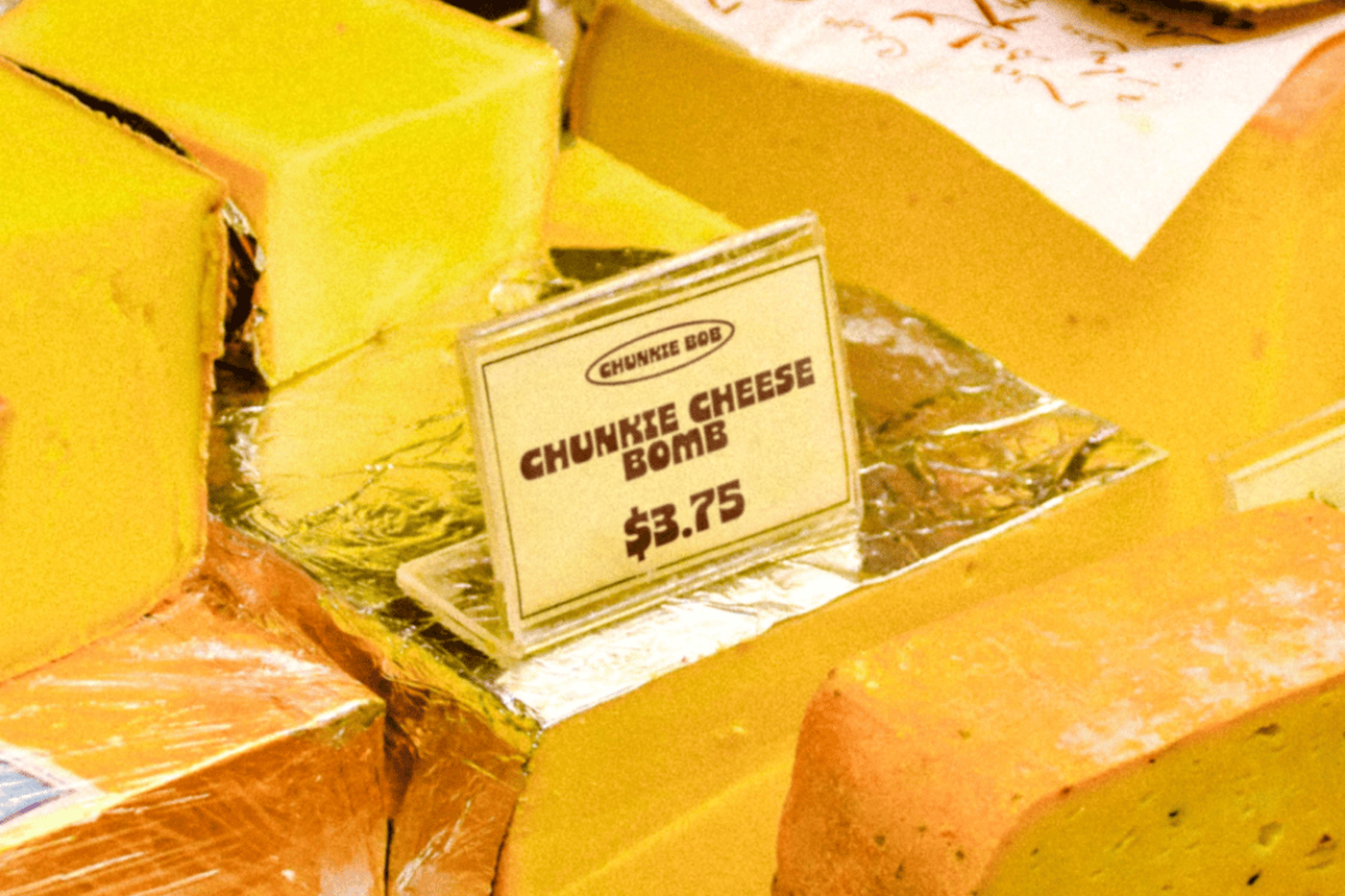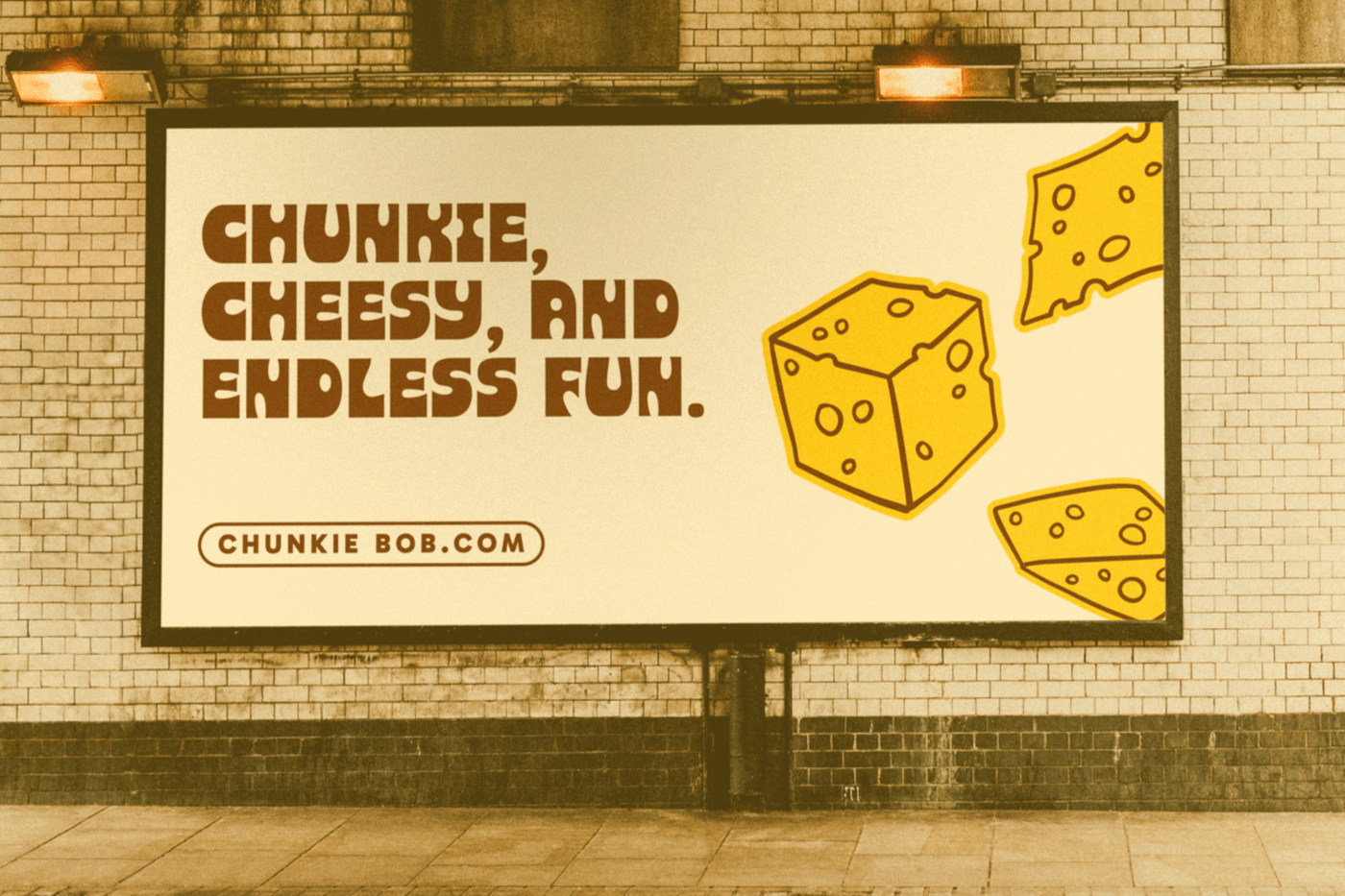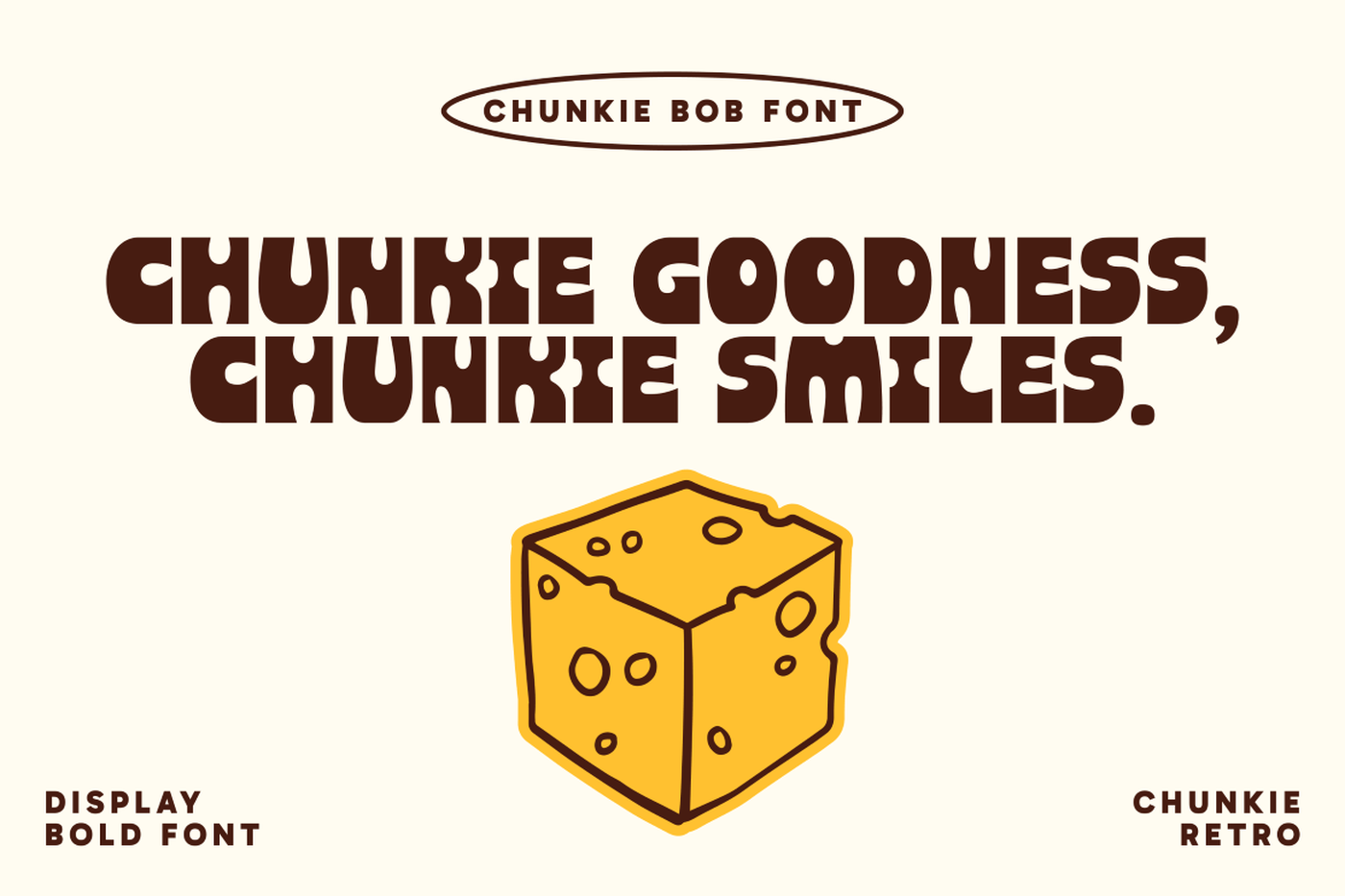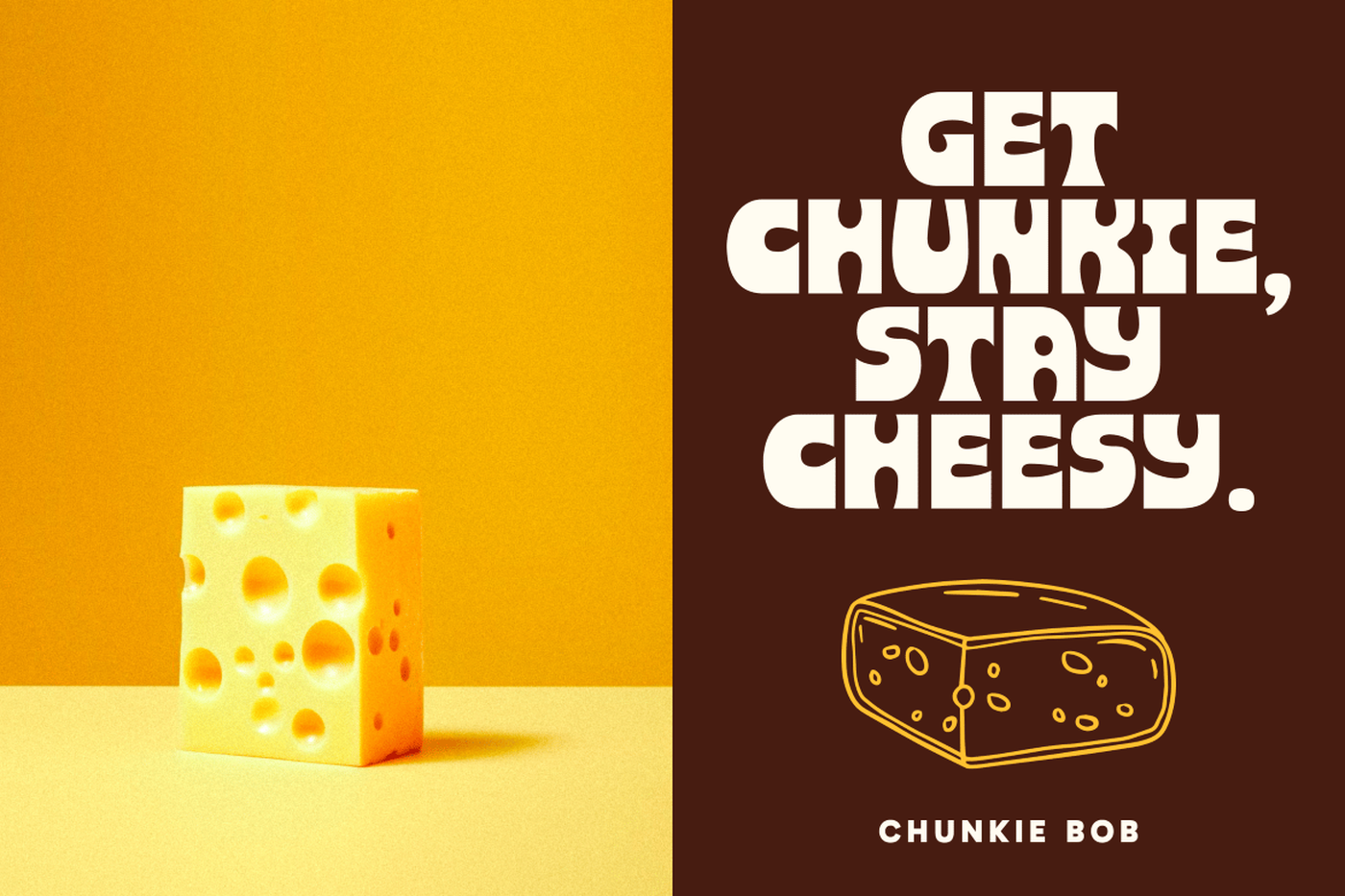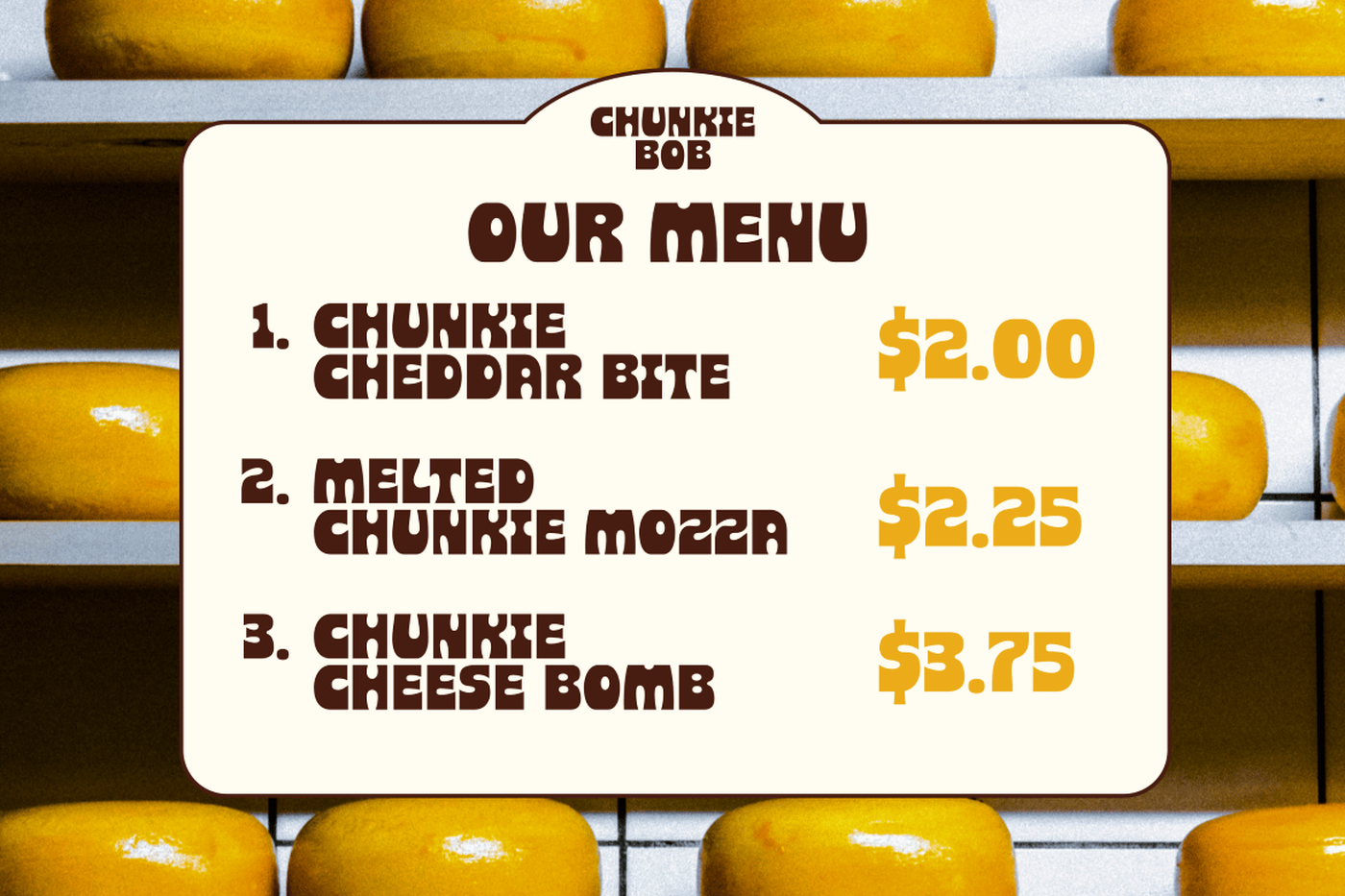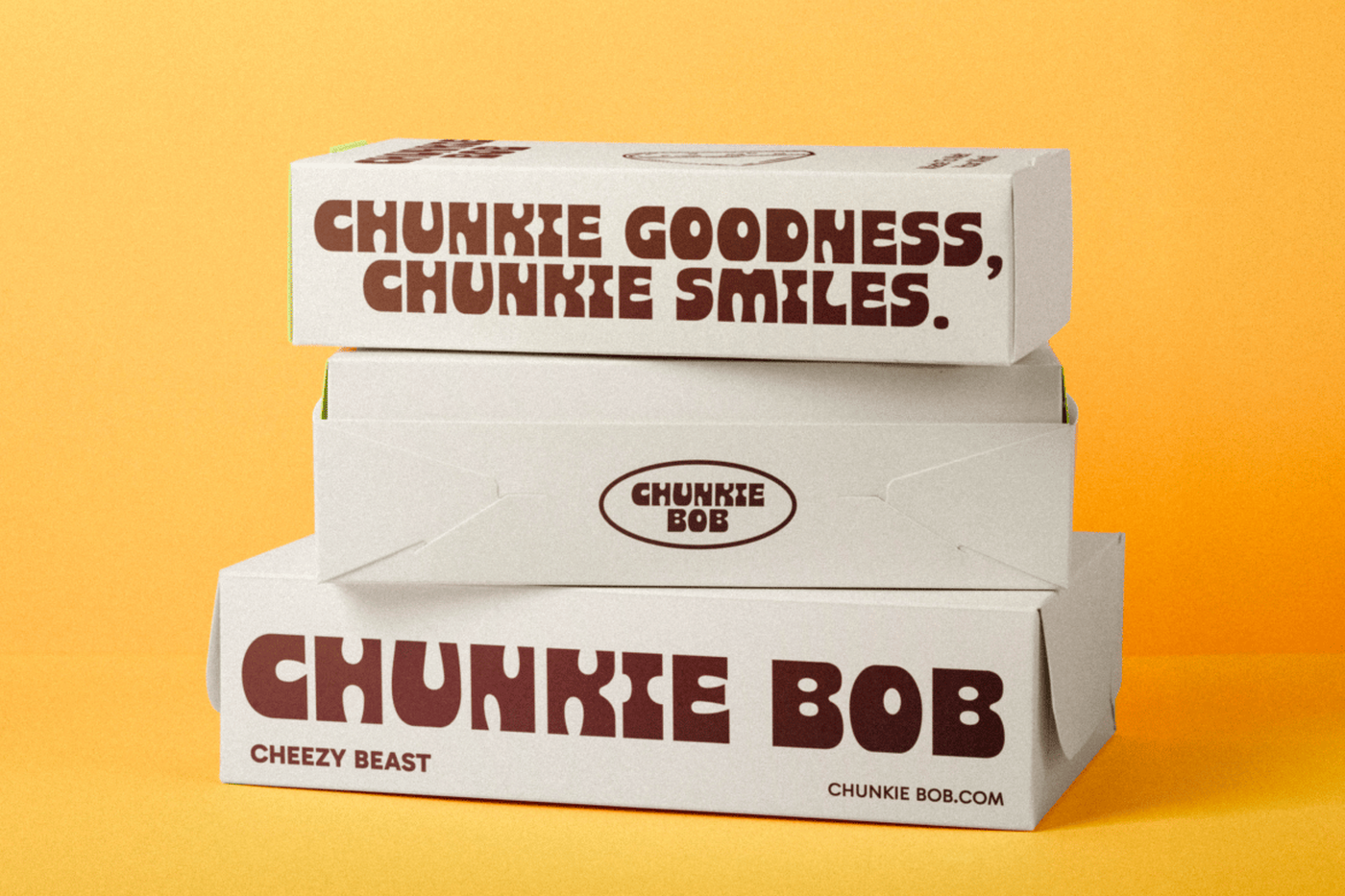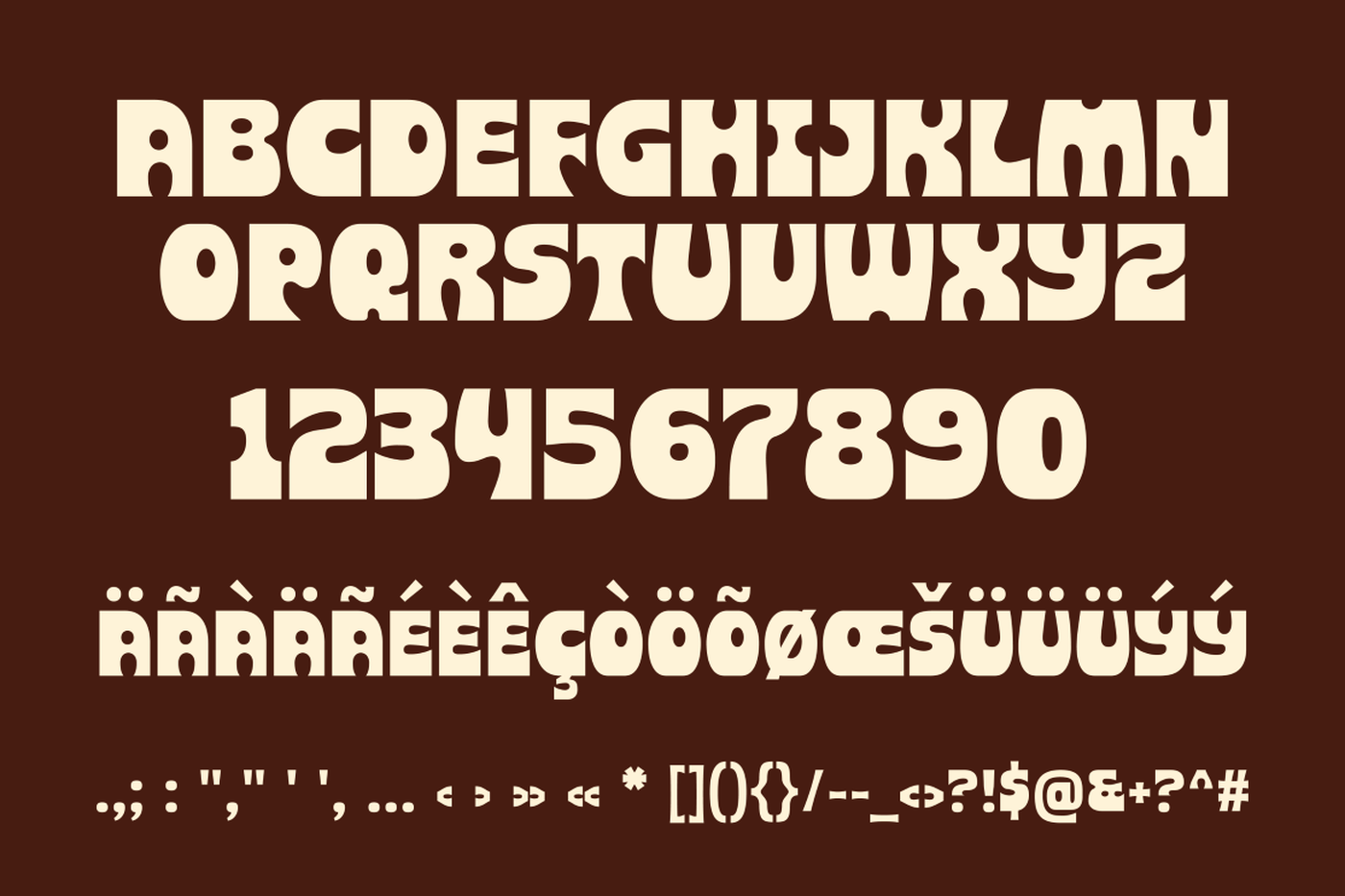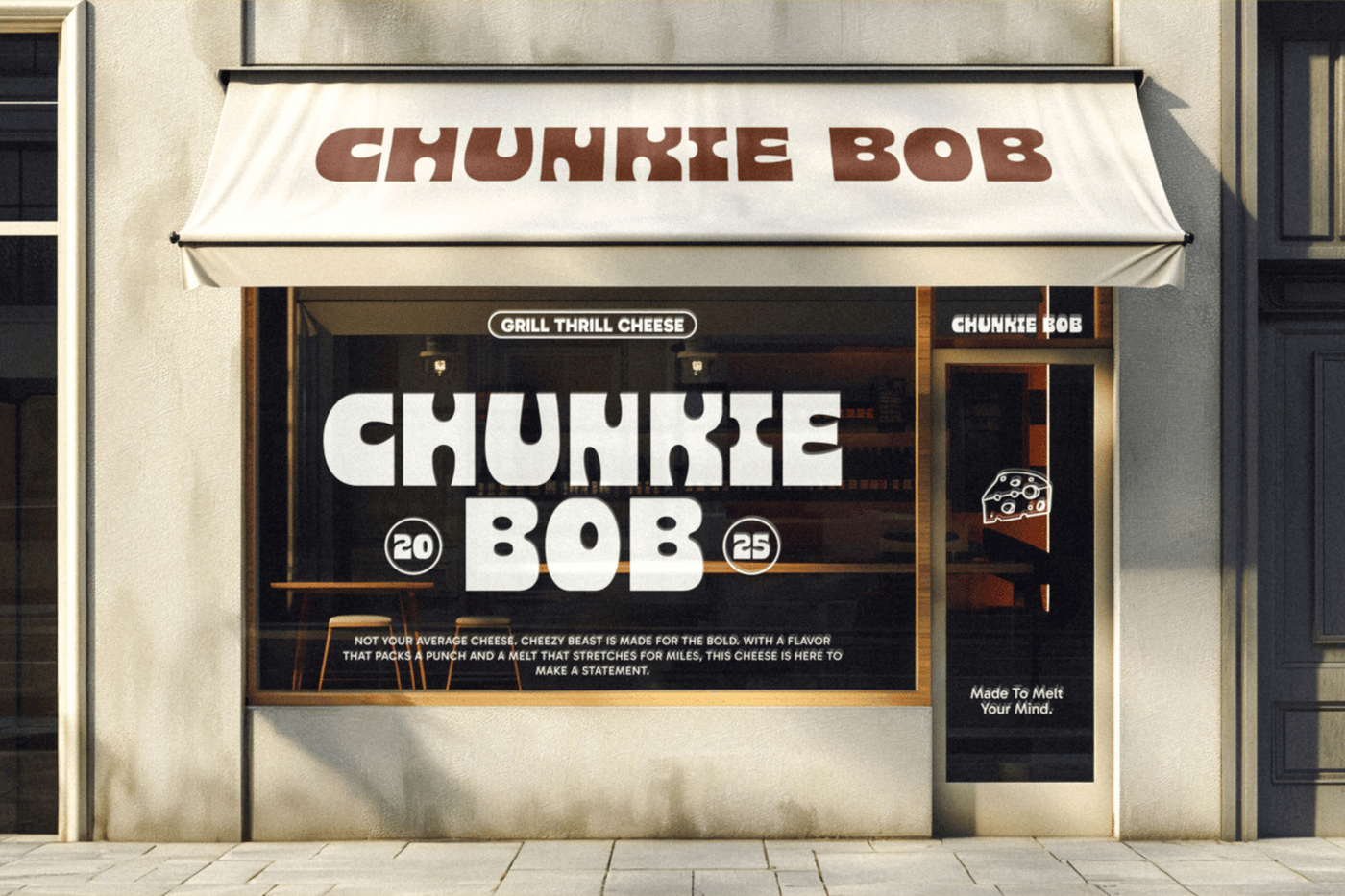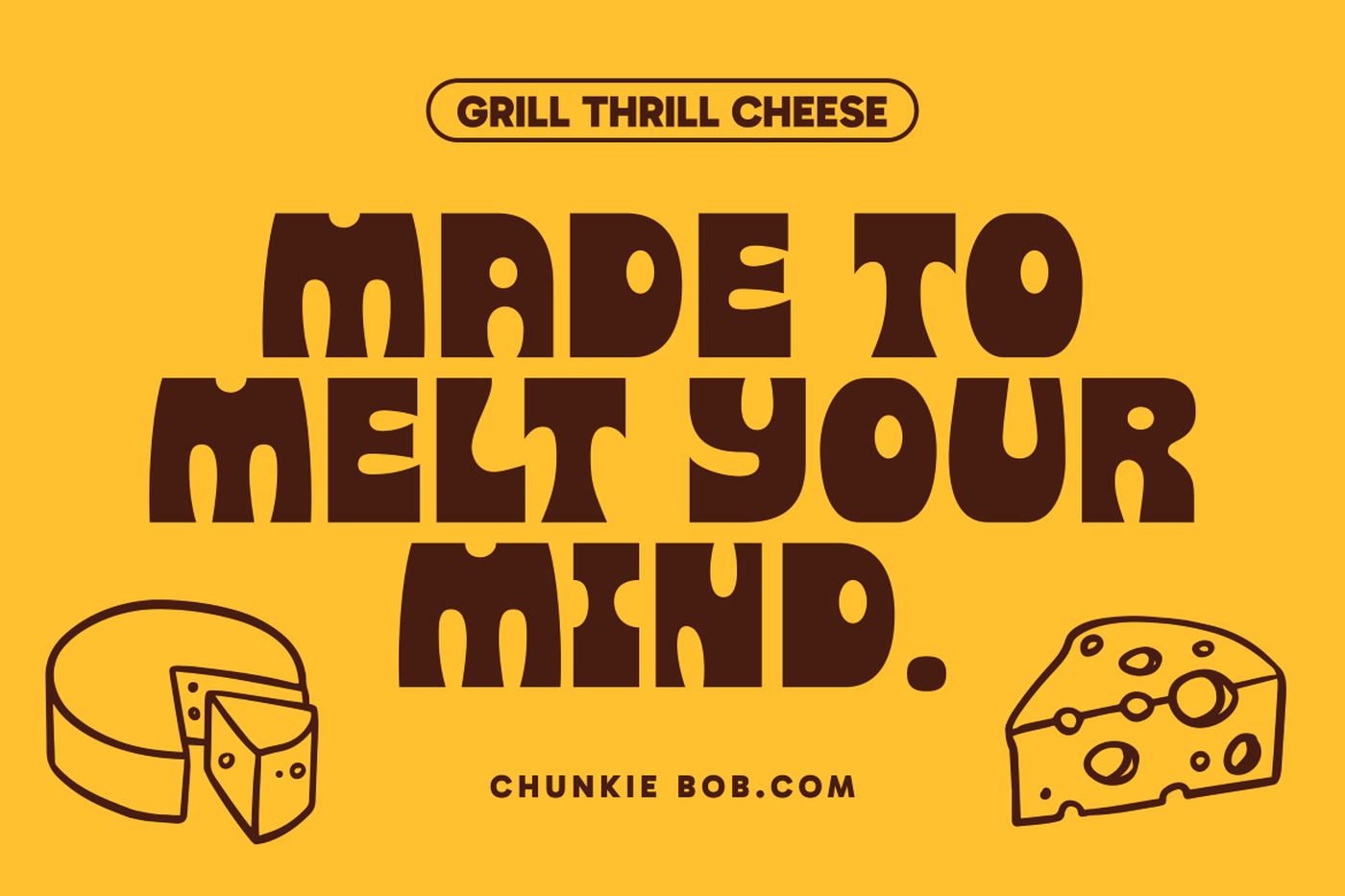
Chunkie Bob - Bold Display Font
Chunkie Bob is a retro-inspired typeface with chunky, strong letterforms perfect for headlines, posters, logos, packaging, and social media graphics. Its bold and playful design adds vintage charm and modern impact, making it the ideal choice for creative projects that demand attention-grabbing, stylish, and memorable typography.